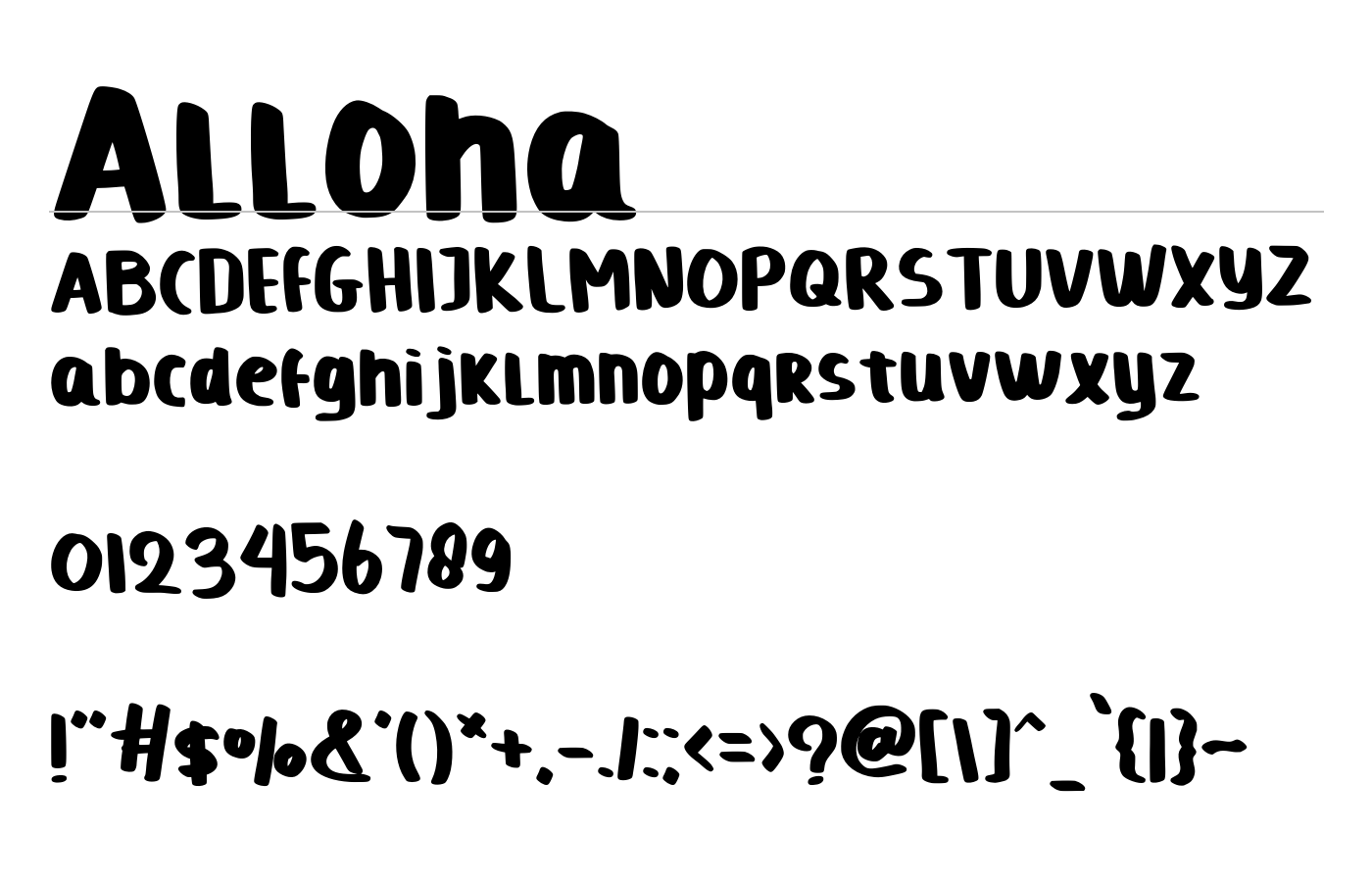
Alloha is a playful and casual sans serif font with a bold, rounded style that feels friendly and approachable. Its slightly irregular shapes and informal stroke endings give it a hand-drawn, fun character perfect for creative projects, children's materials, or brands seeking a warm, inviting tone. This font works well for headlines, logos, and packaging where a lively and personable impression is desired.
Alloha Font
About Alloha Font